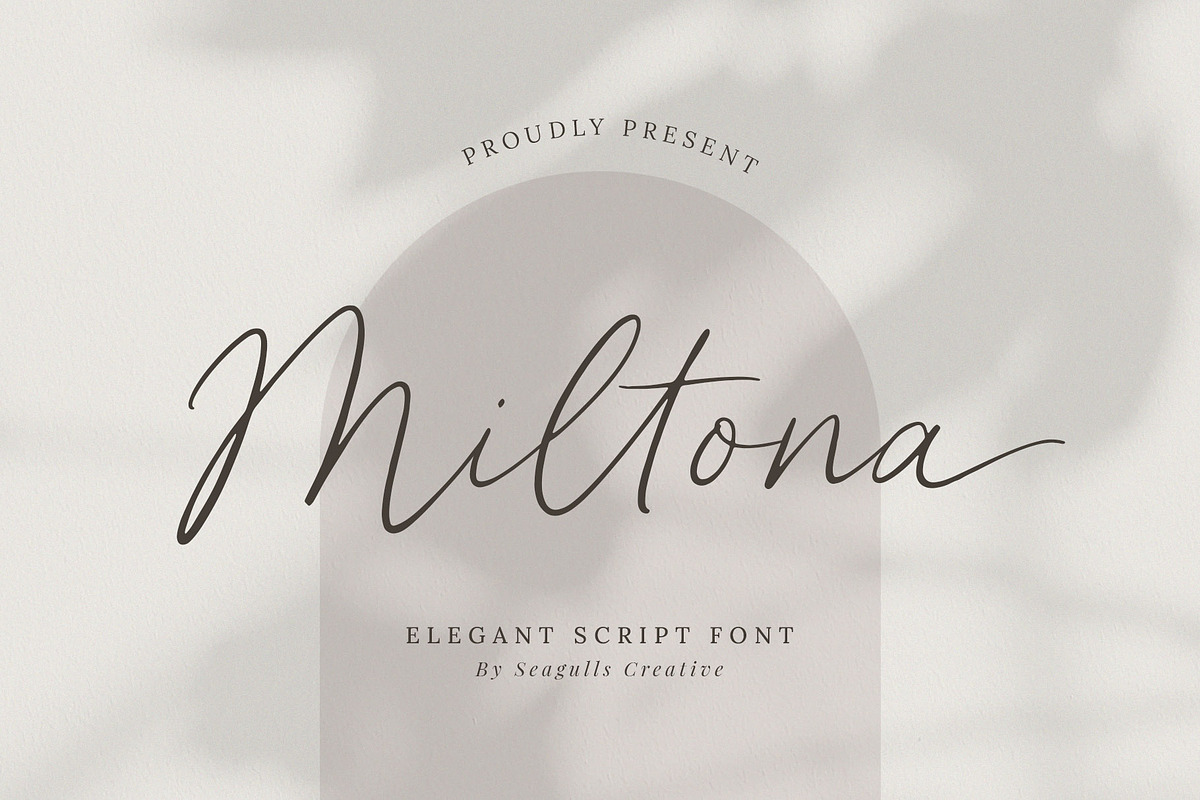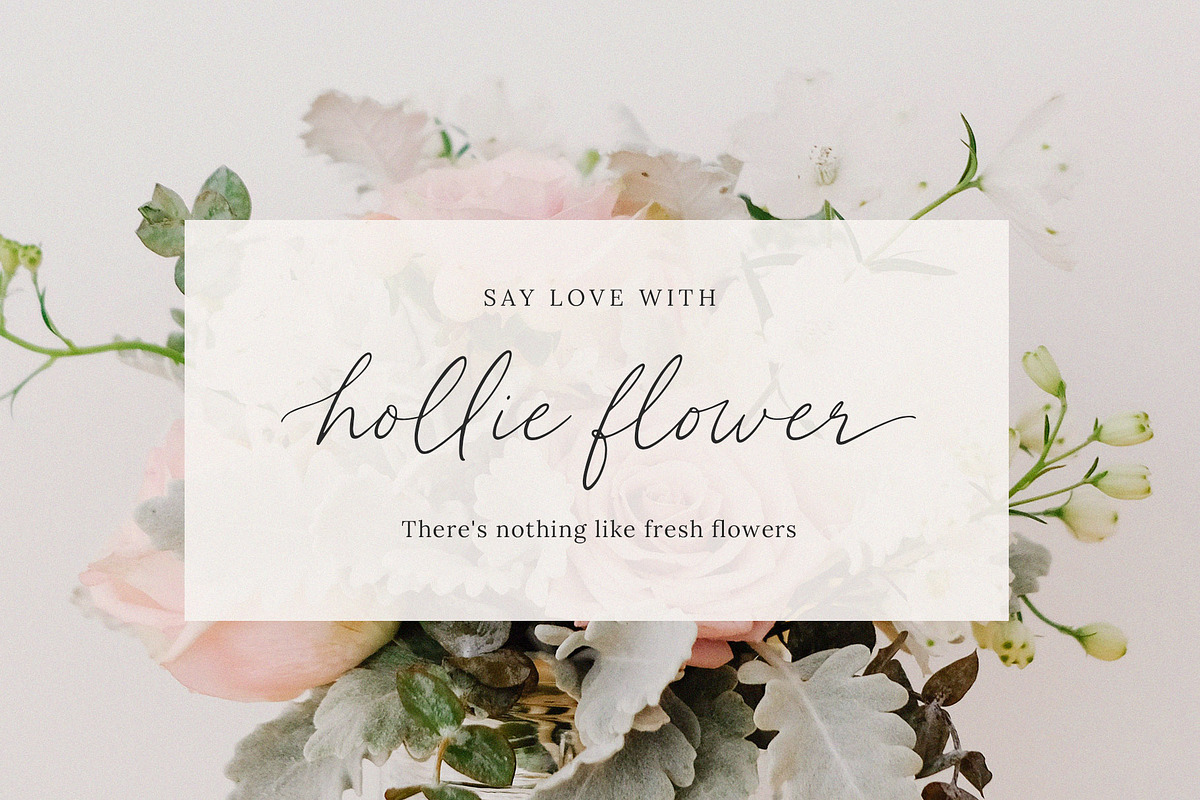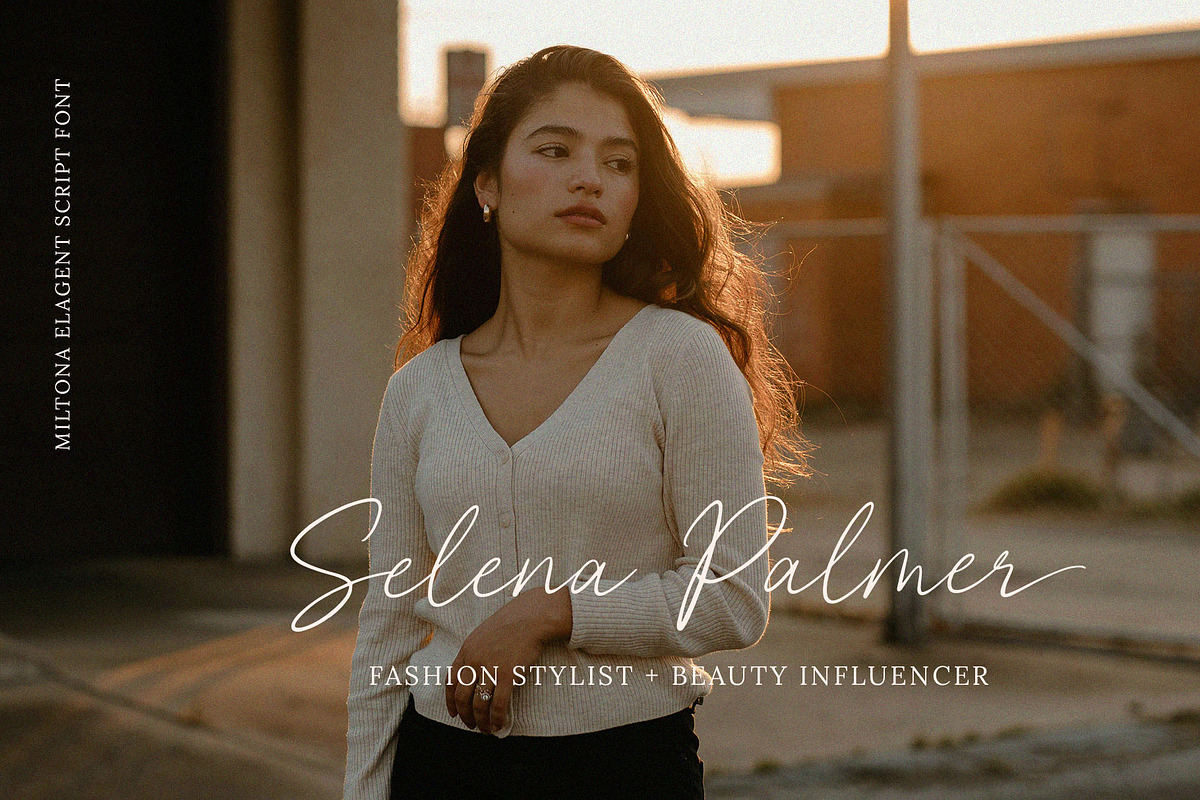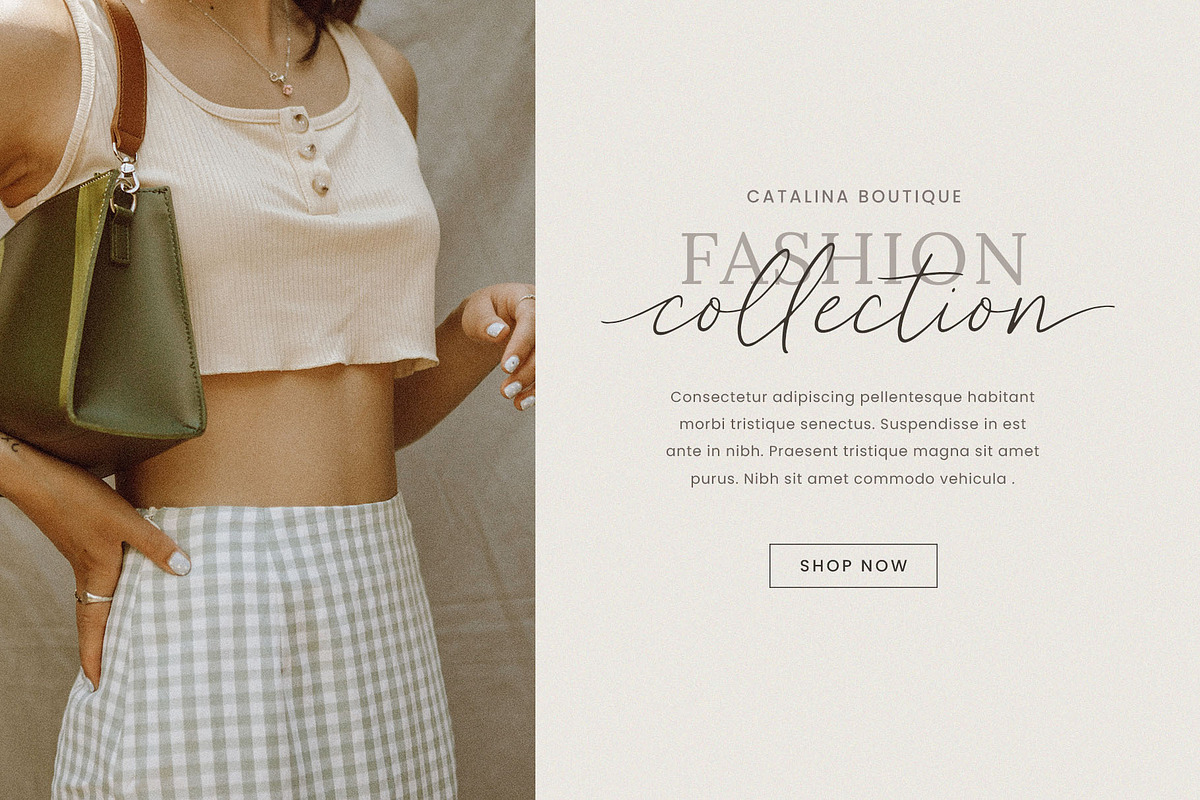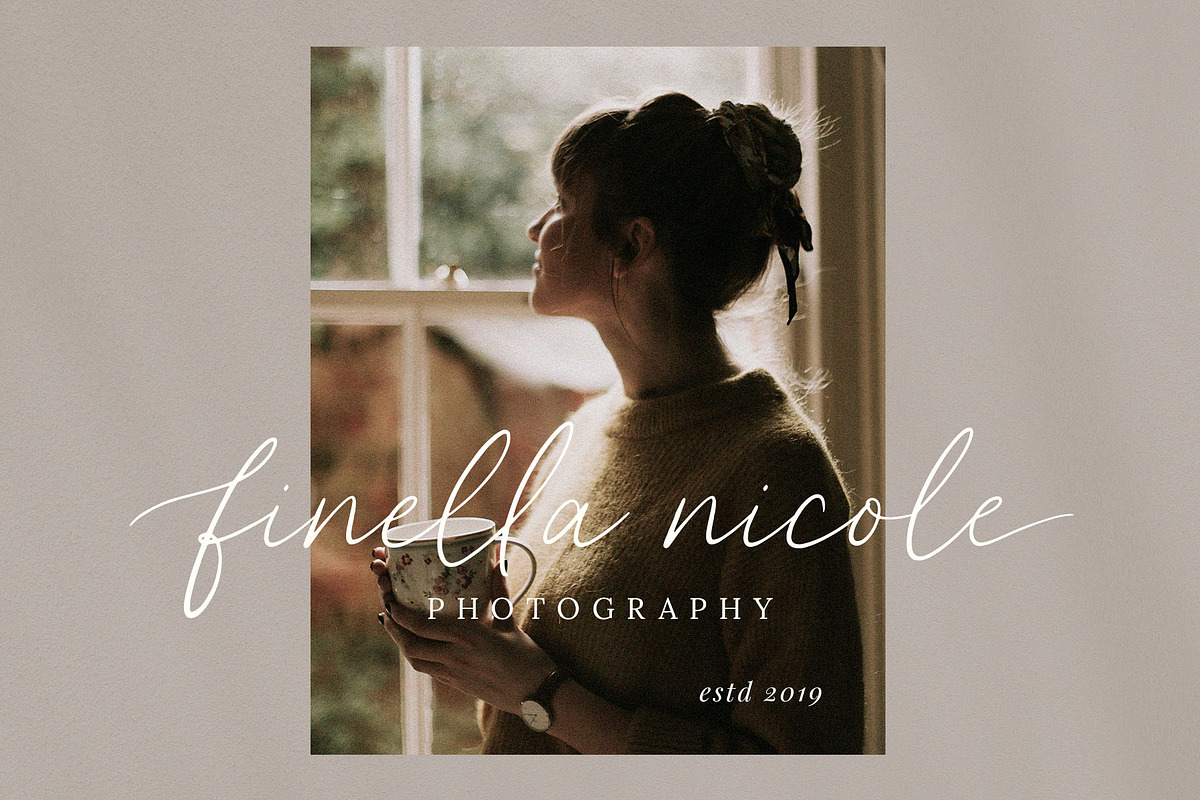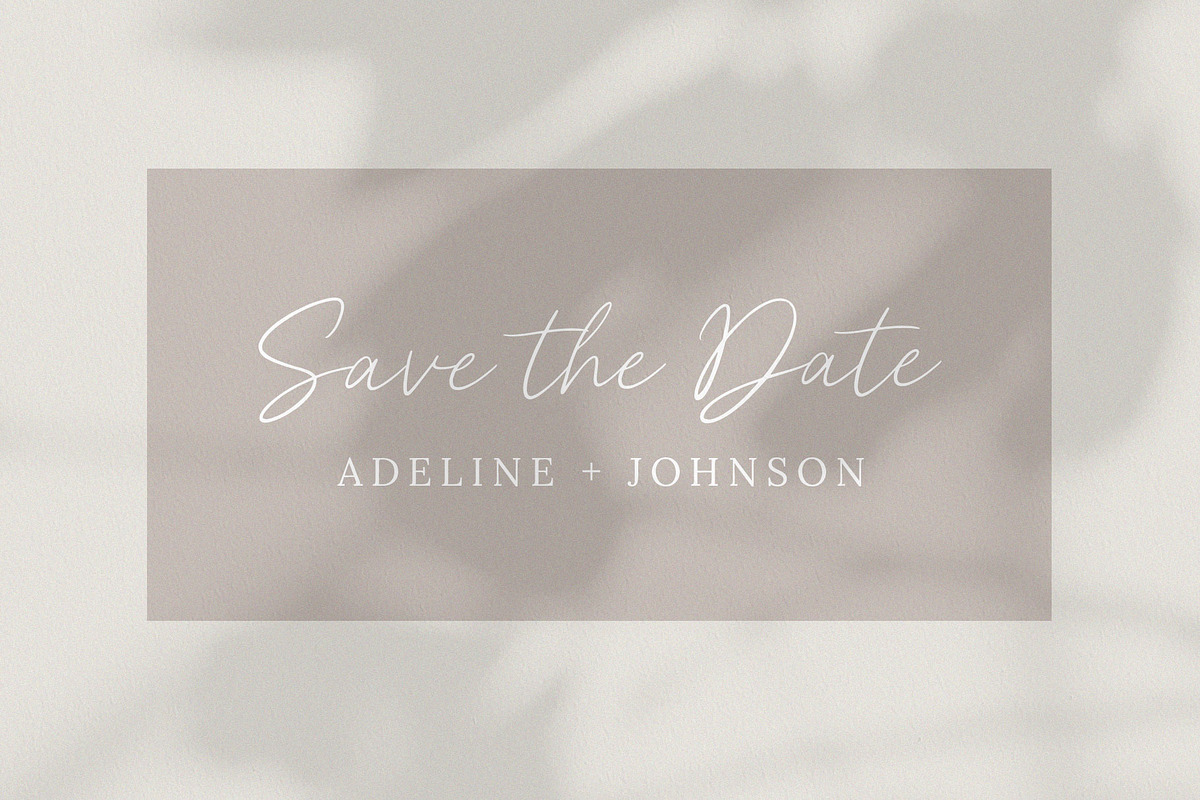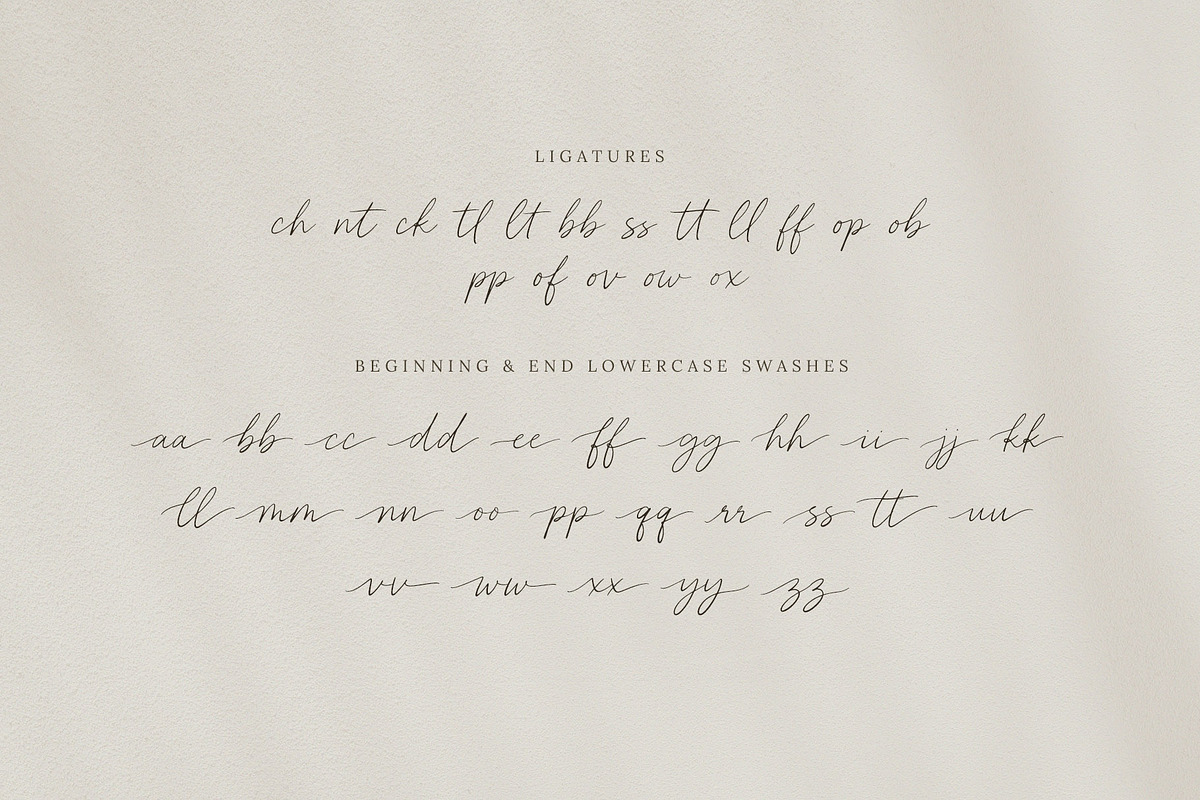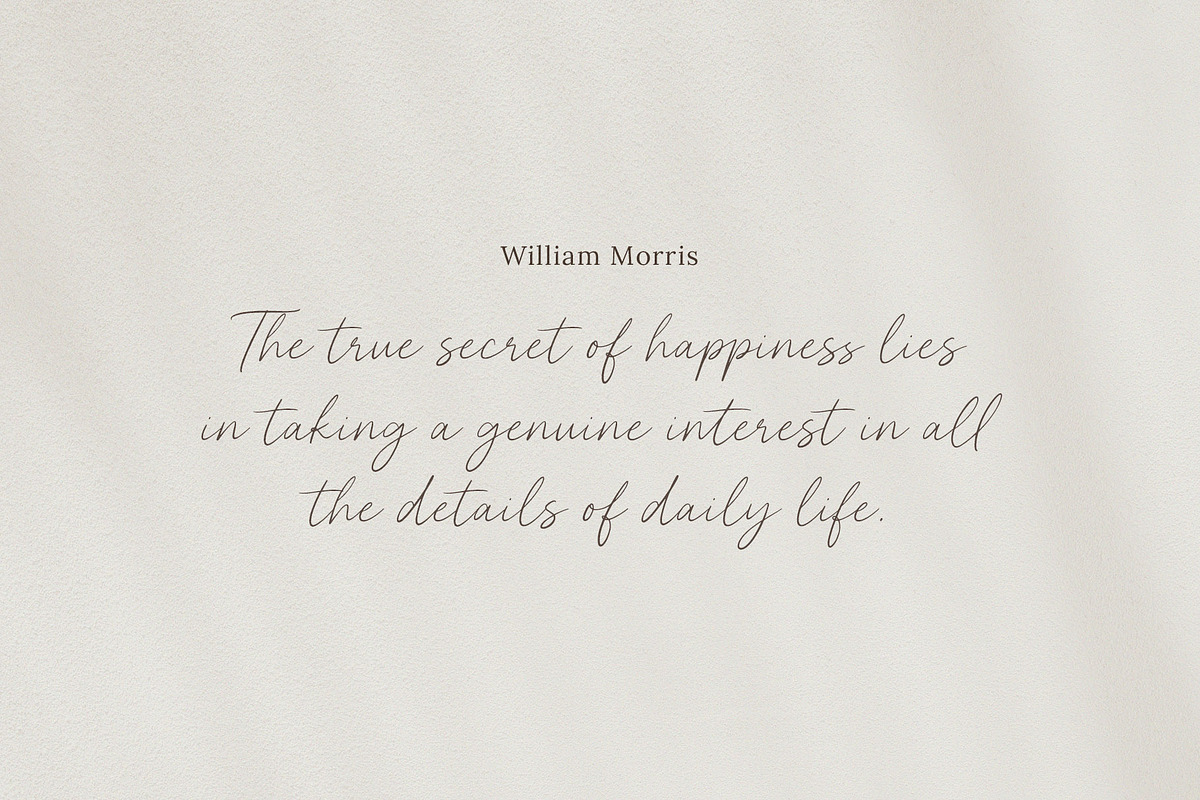
Miltona Elegant Script Font
Hello everyone, I would like to introduce Miltona a elegant modern script font.
Miltona can be used for a variety of projects such as branding, photography, invitations, stationery, wedding designs, social media posts, advertising, product packaging, product design and other romantic projects.
- Letters, numbers, symbols, punctuation, ligatures, beginning and ending
- Fonts include multilingual support